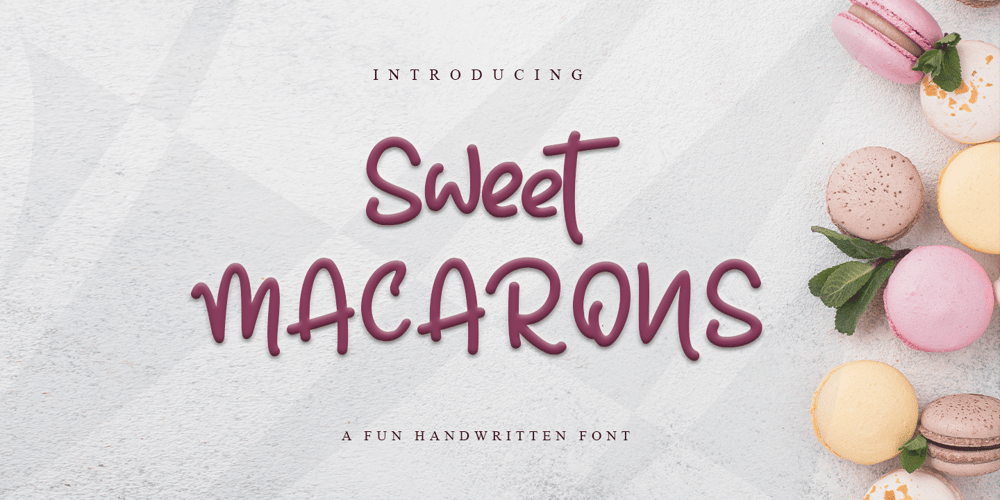
Sweet Macarons Font Family was designed by Stefani Tri Rosa Setiati Christiana and published by Stefani Letter. Sweet Macarons contains 1 styles and family package options. Sweet Macarons is a playful display font that is easy to read. It’s perfect for Christmas cards, branding, stationery, blog design, custom art, custom stamps, custom embossers, book, apparel, packaging, headline, Crafting, Logo, or much more! It will add a unique feel and looks stunning to any design project! This font is PUA encoded which means you can access all of the cute glyphs with ease! It also features a wealth of including ligatures. Fall in love with its incredibly distinct and timeless style and use it to create spectacular designs!